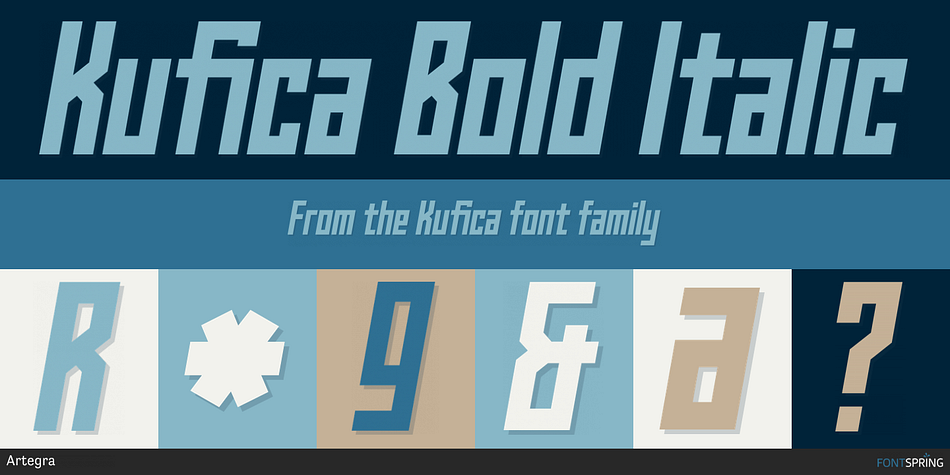
Kufica Bold Italic
Kufica is a display sans font family. This typeface has four styles and was published by Artegra.
Kufica is a geometric sans serif display family based on the kufic style, a 7th century calligraphic form of the Arabic script originates from Kufa, Iraq. It’s quite amazing that a historic Arabic calligraphic style can be implemented into a modern (even futuristic!) typeface that serves so well in modern advertising, branding, packaging, posters and so on. Kufica family comes in 2 weights with italics, each of the fonts has solid language support with over 430 glyphs.